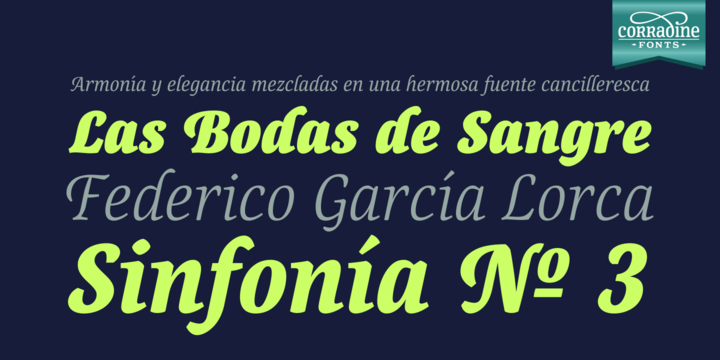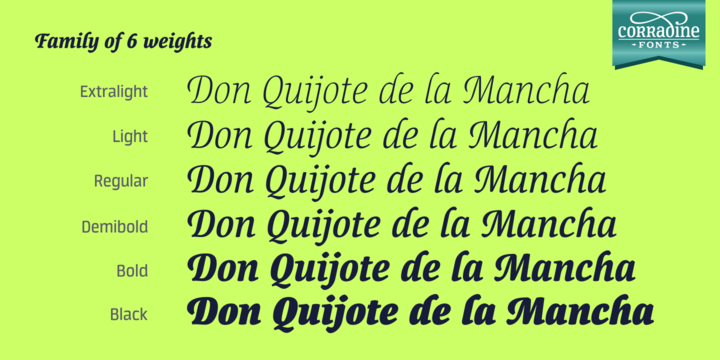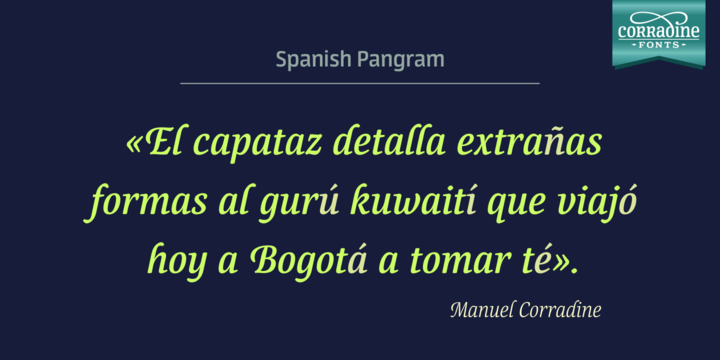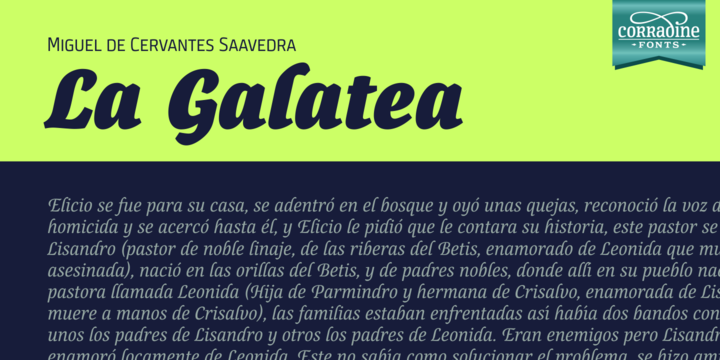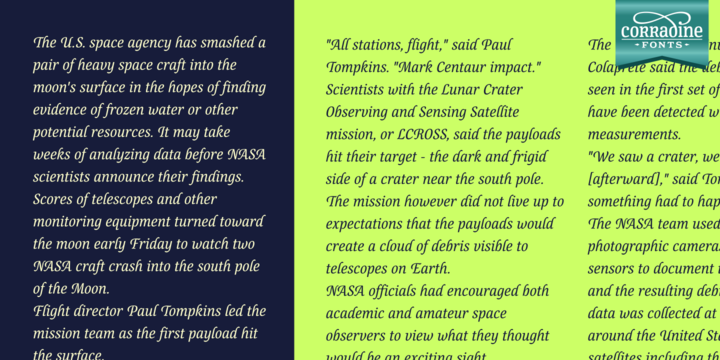
Canciller Family Font
About Canciller Family Font
Canciller is a elegant typeface family. It will give your projects a exclusive and fresh appearance. Its style is a mix between the grace of calligraphy and the legibility of typography so Canciller can be used in a wide range of purposes.